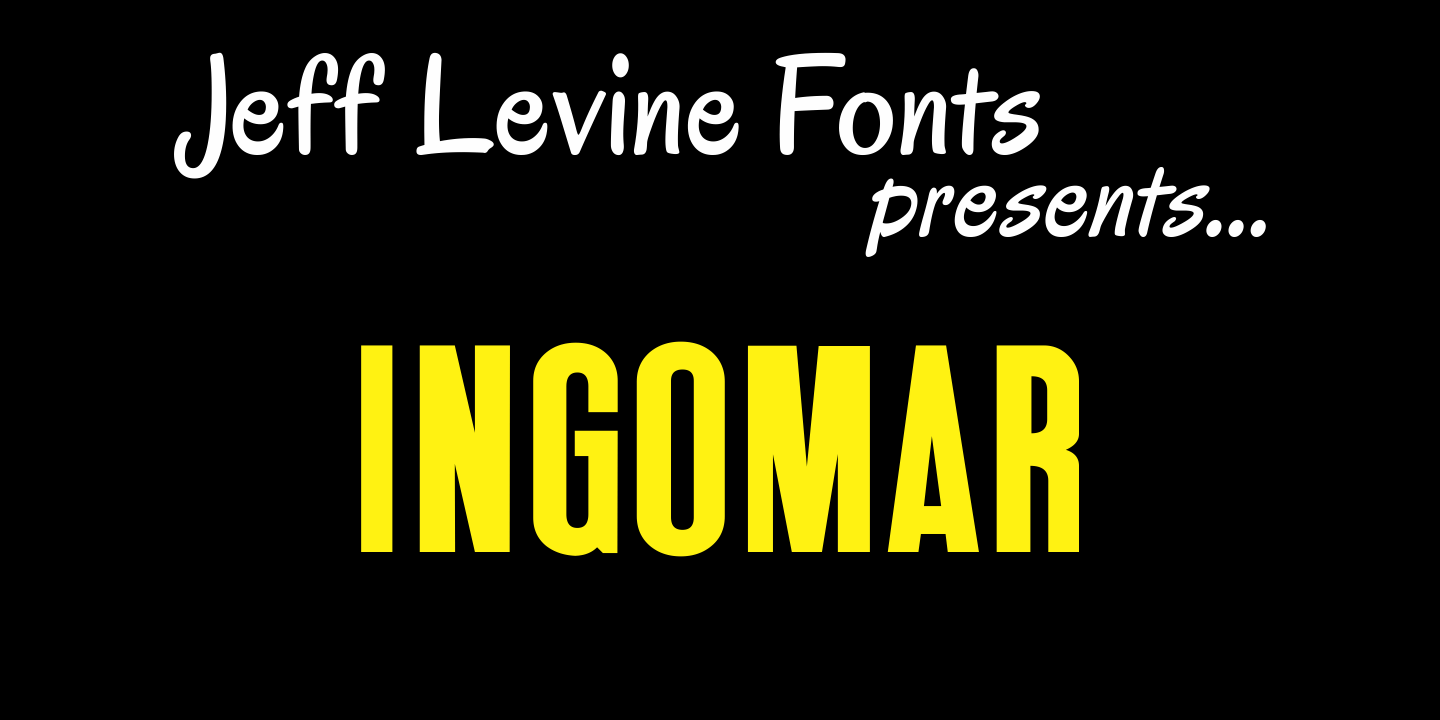
Ingomar
The perfect companion to Twelve Oaks JNL is this condensed sans serif font created by Jeff Levine from scans of actual wooden type blocks.
Ingomar JNL [named after a town in Montana] continues the charm and nostalgia associated with this type of lettering.